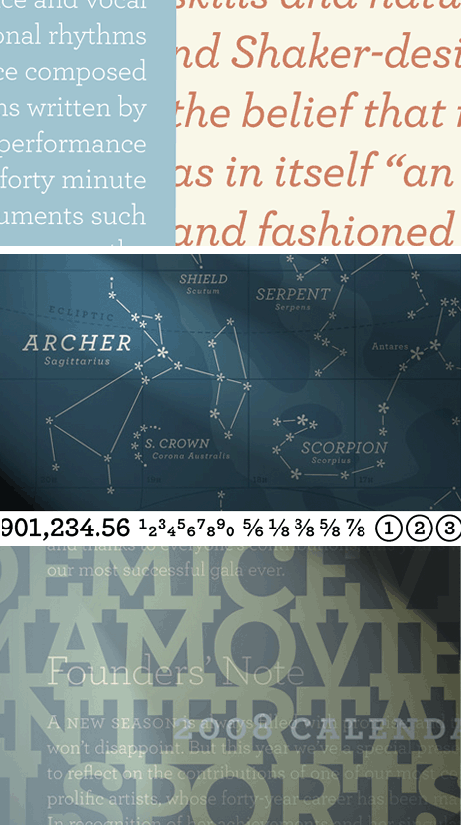
Font Fetish: Hoefler and Frere-Jones' Archer
A slab serif anyone could love
Don't tell Jonathan Hoefler or Tobias Frere-Jones, but I have such a crush on their typefaces. Seriously -- when I see just about anything from them for the first time I can only gaze at it, slack-jawed, practically drooling, for hours. (My crushes aren't the prettiest things.)
I'm similarly passionate about one of their newest releases, Archer, although I've seen it for years in the pages of Martha Stewart Living. Now us mere mortals can buy Archer, a slab serif with a many-faceted personality. The least expensive package, which contains 10 styles, is $199. The top of the line is $399 and includes 40 styles in eight weights.
Ready to drool? Take a look at these samples: